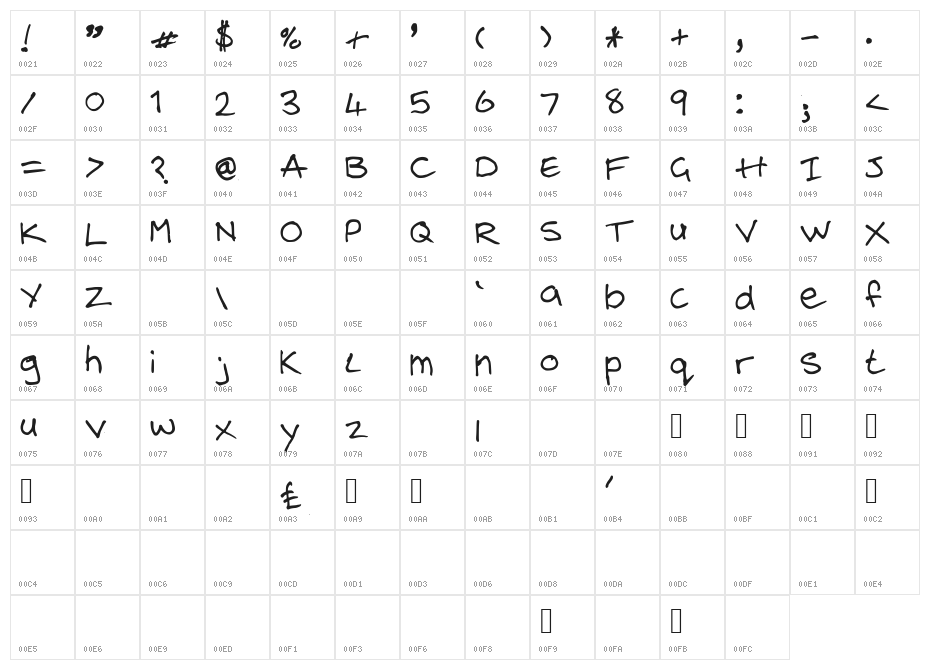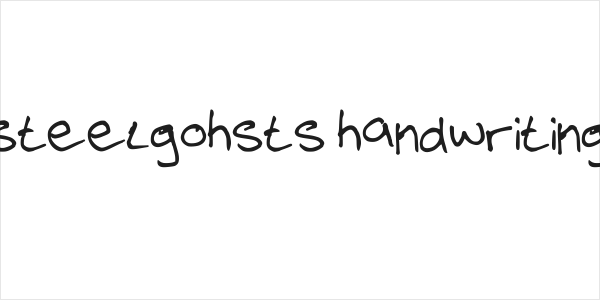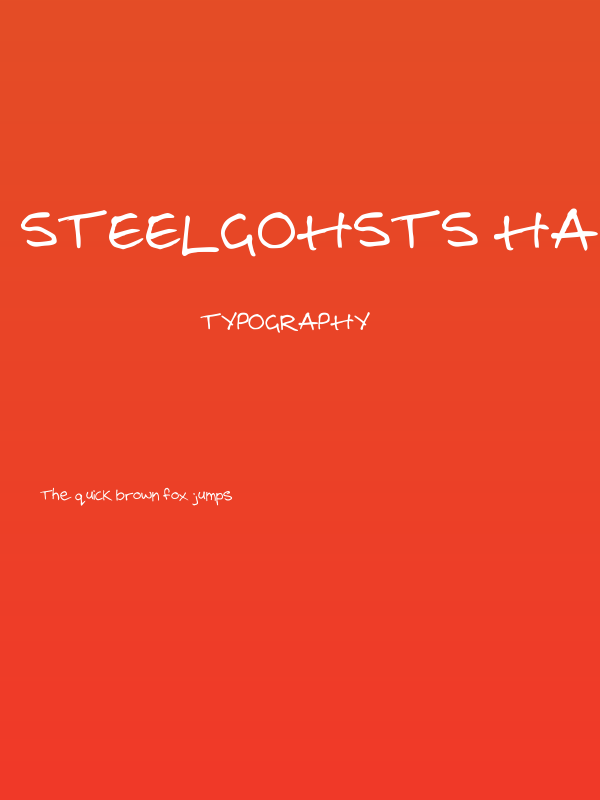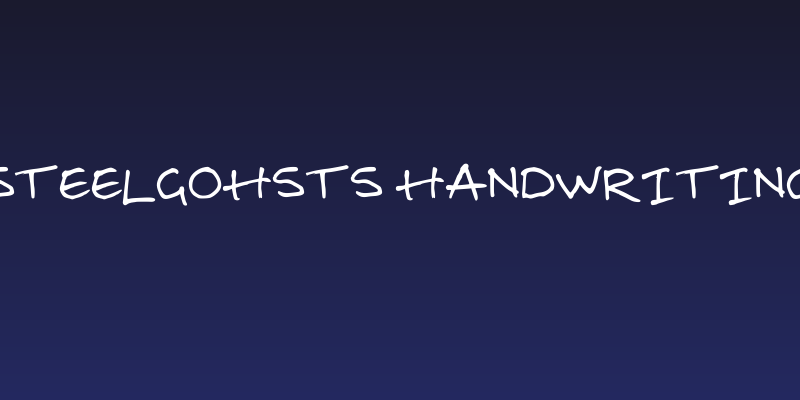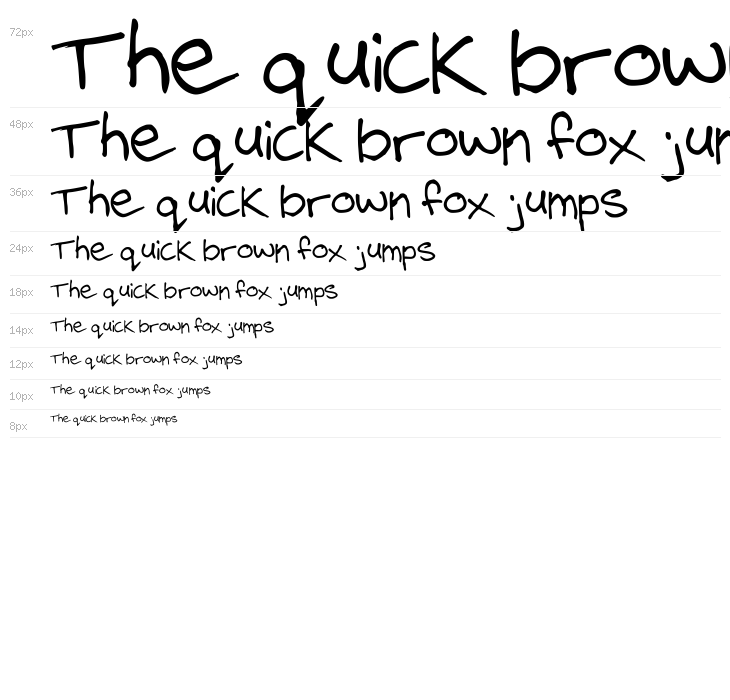
steelgohsts handwriting Font
steelgohsts handwriting Description
This font exudes a casual and personal touch, reminiscent of authentic handwriting. The letters are slightly uneven, adding to its charm and approachability. The strokes are smooth and fluid, giving a sense of movement and spontaneity. It features a mix of rounded and angular forms, with some letters having distinctive loops and curves. The overall appearance is informal yet legible, making it suitable for projects that require a personal or friendly tone. The numbers and special characters maintain the same handwritten style, ensuring consistency across all elements.
| Use Case | Invitations, Greeting cards, Personal notes |
| Proposed Projects | Ideal for personal notes, invitations, greeting cards, and informal branding projects. |